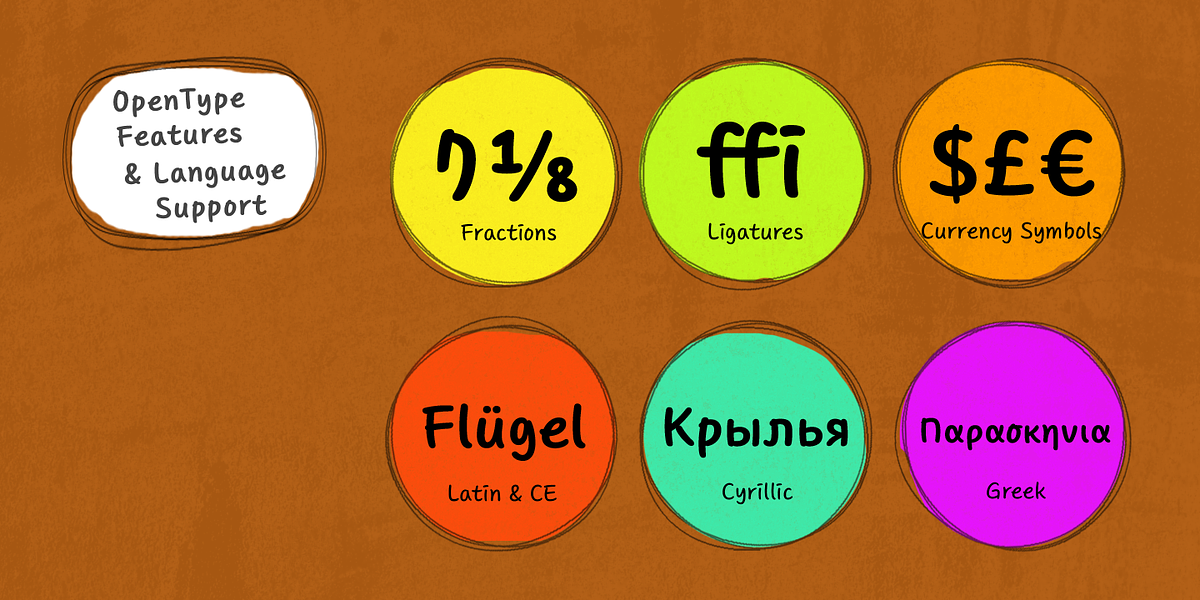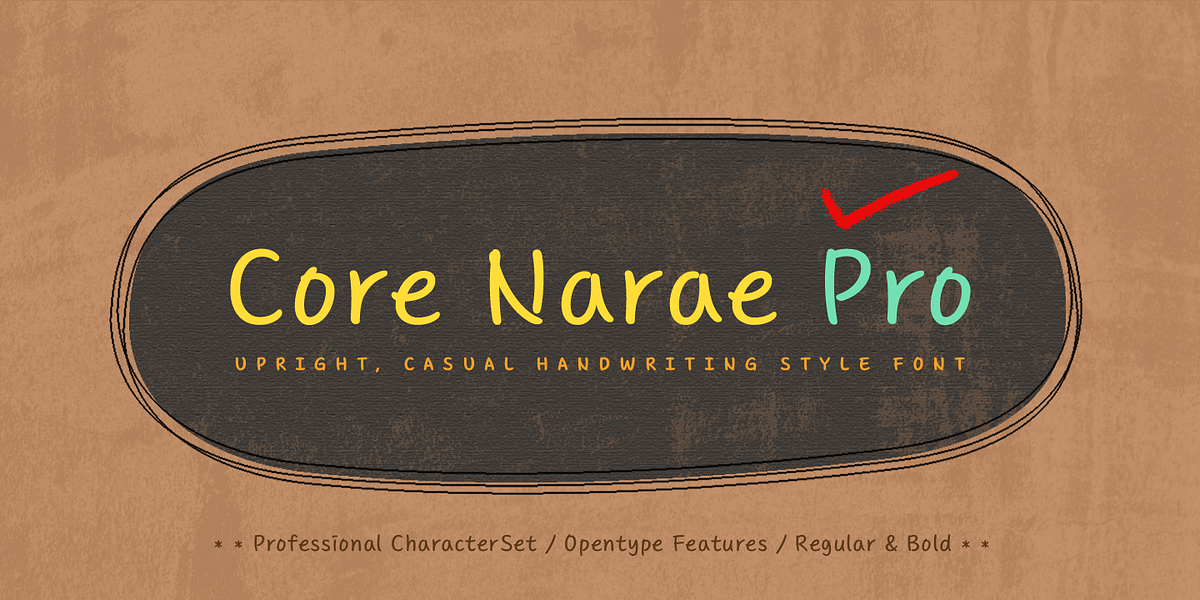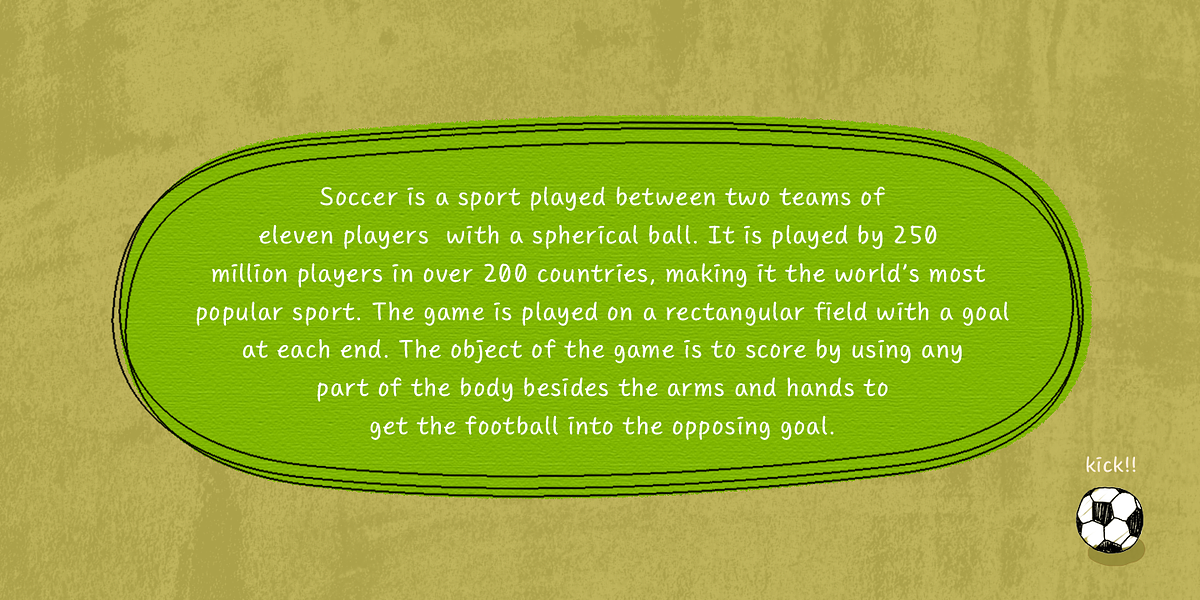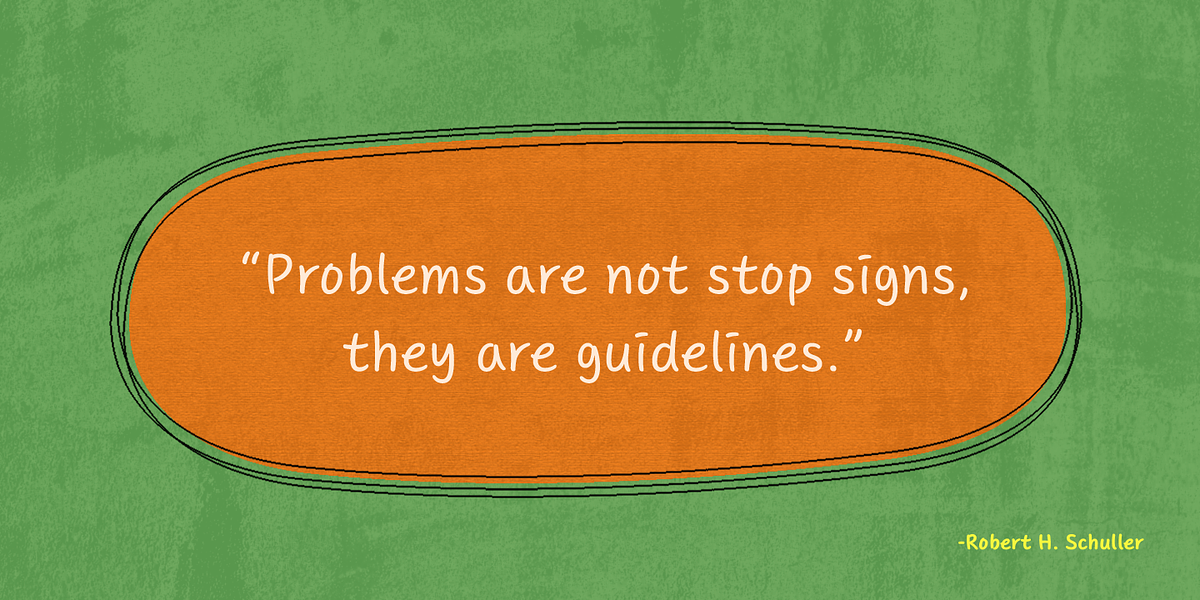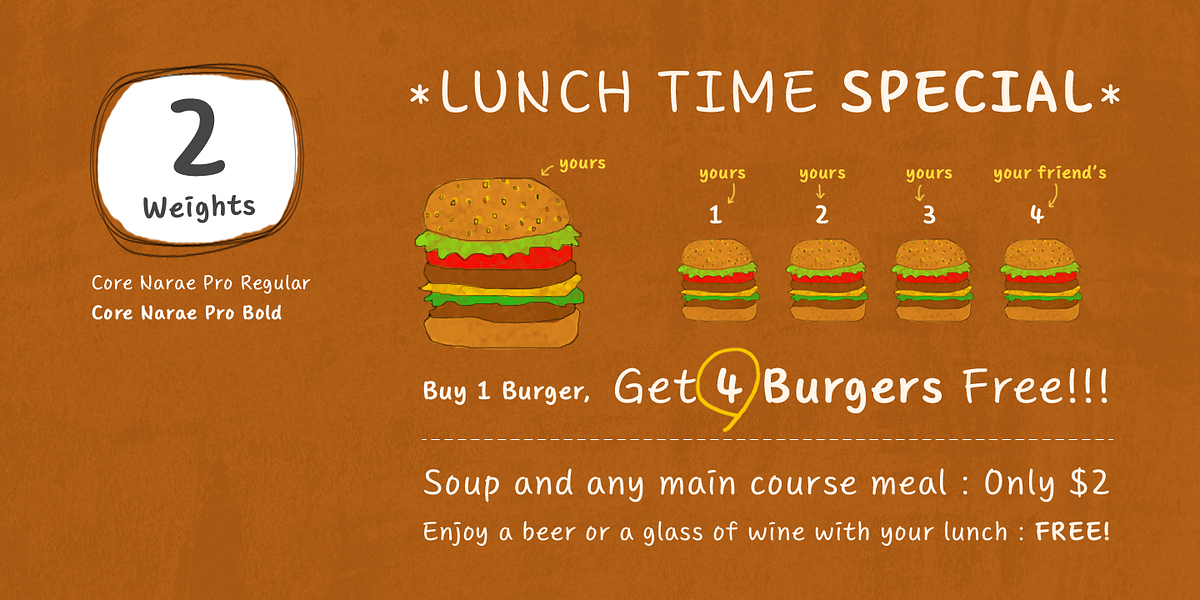
Core Narae Pro
Core Narae Pro is a rounded sans serif font designed for both readability and visual appeal. Its bending strokes create a friendly and approachable feeling, making it suitable for various applications like branding, illustrations, and children's books.